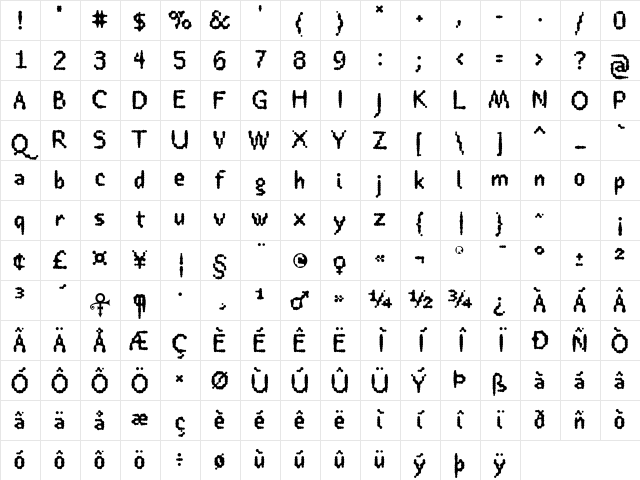
TTRheostatFahrenheit Bold
Design Context for TTRheostatFahrenheit
TTRheostatFahrenheit is a composed and adaptable typeface that performs quietly and consistently across a wide range of design contexts. Its bold stroke weight gives it real presence on the page.